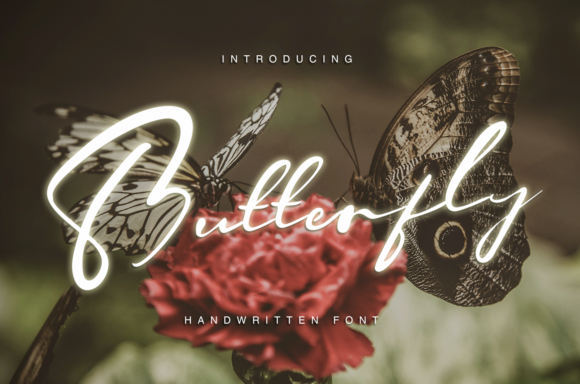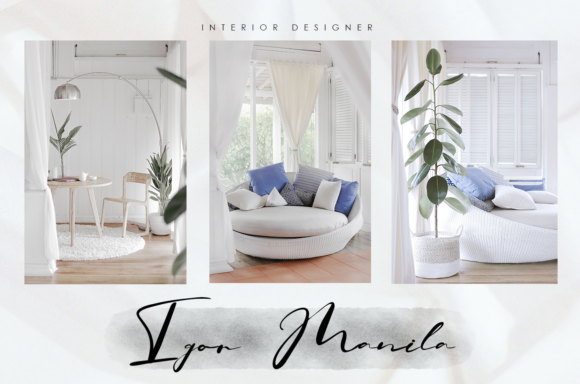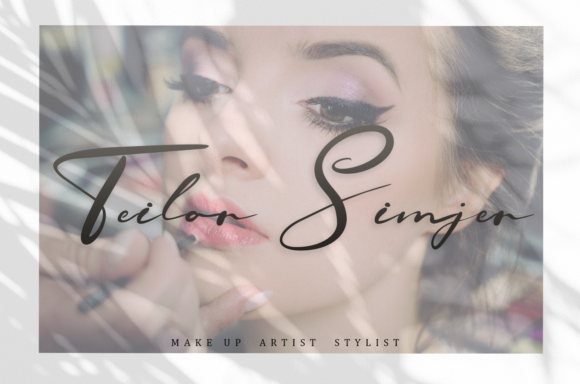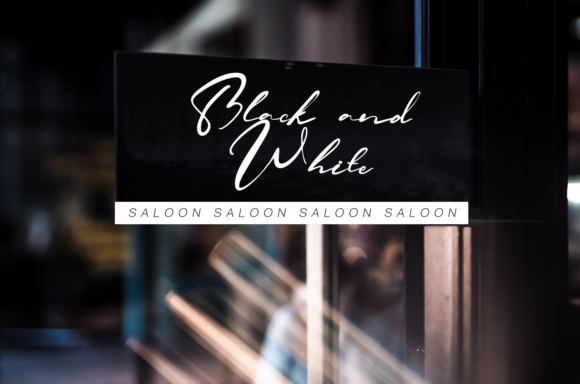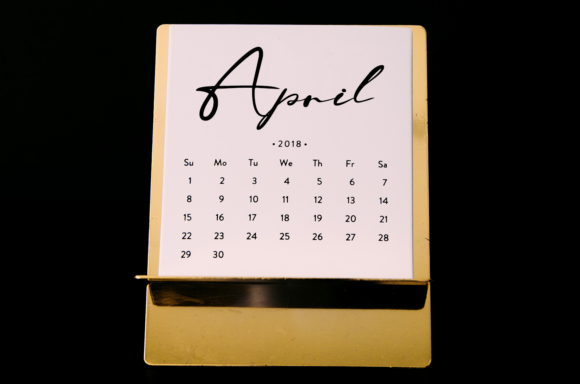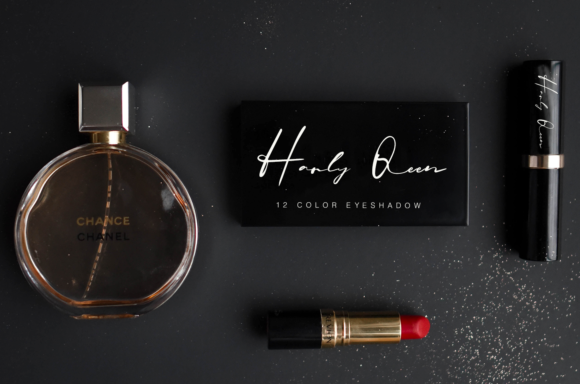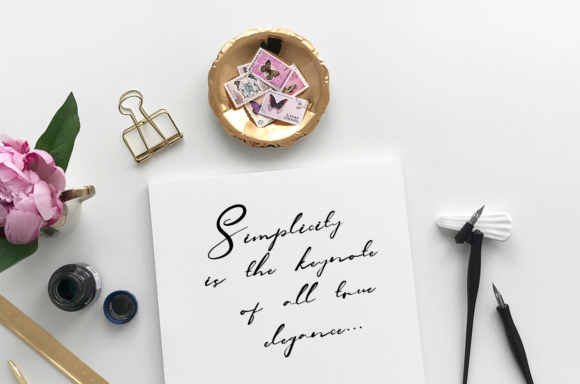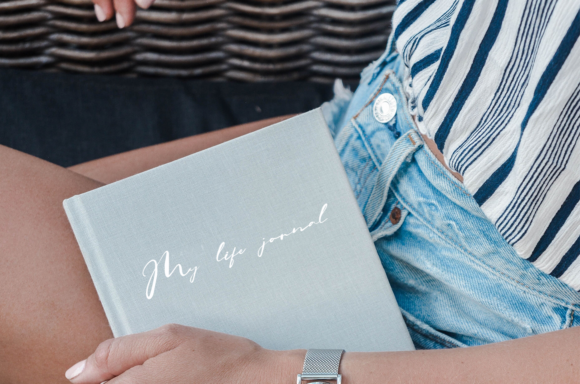
Butterfly is a soft and charming script that radiates cuteness. Ignite your creativity with this beautiful script, and turn any design idea into a true standout.